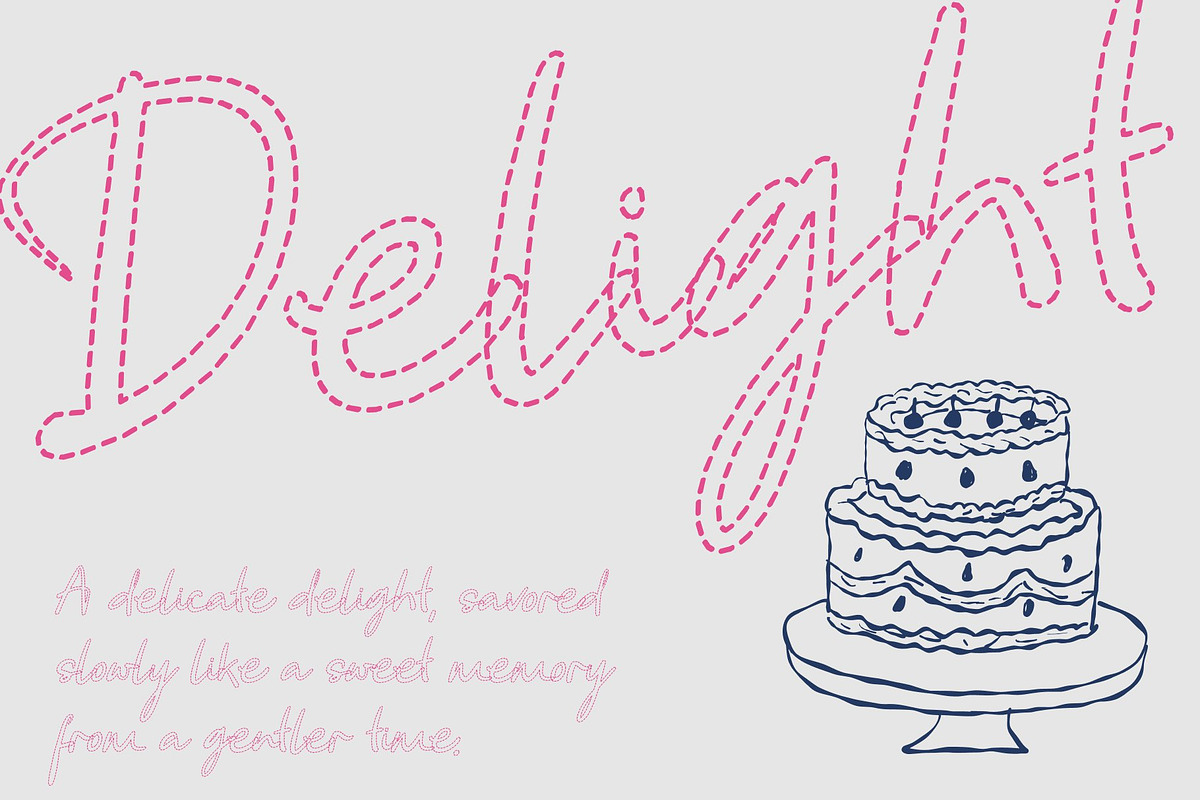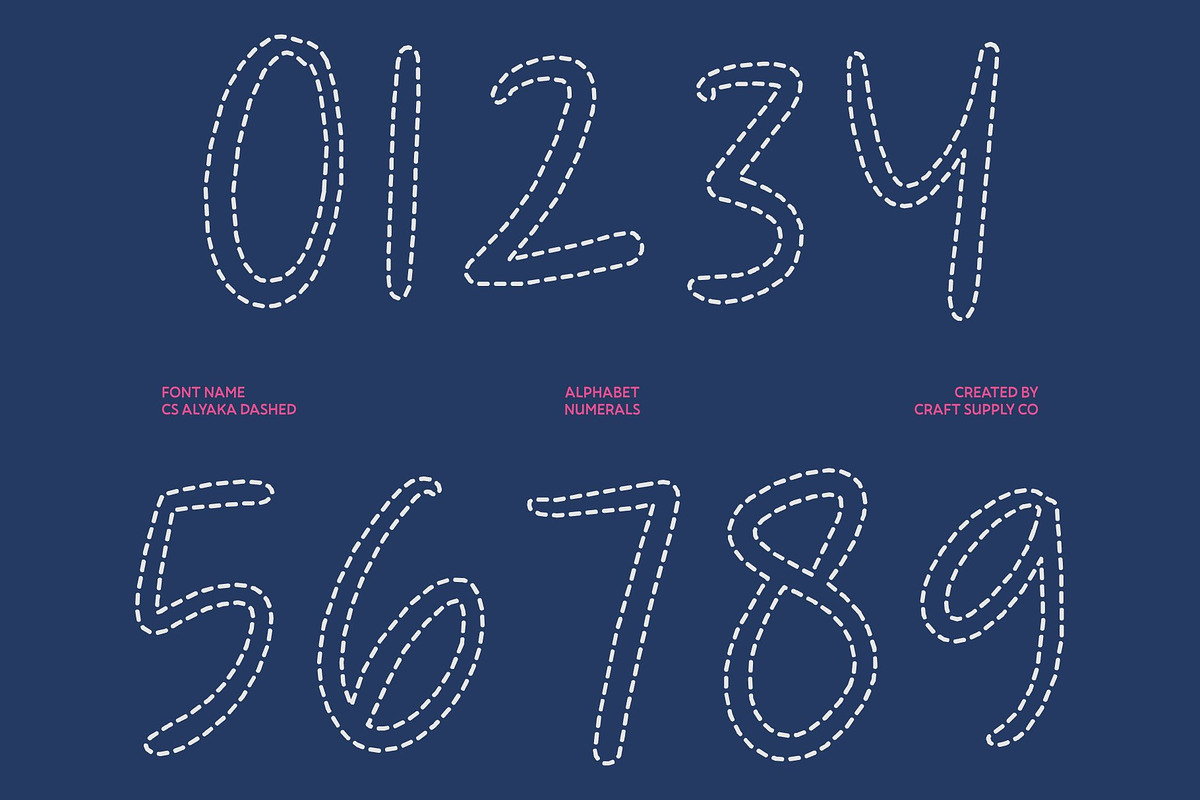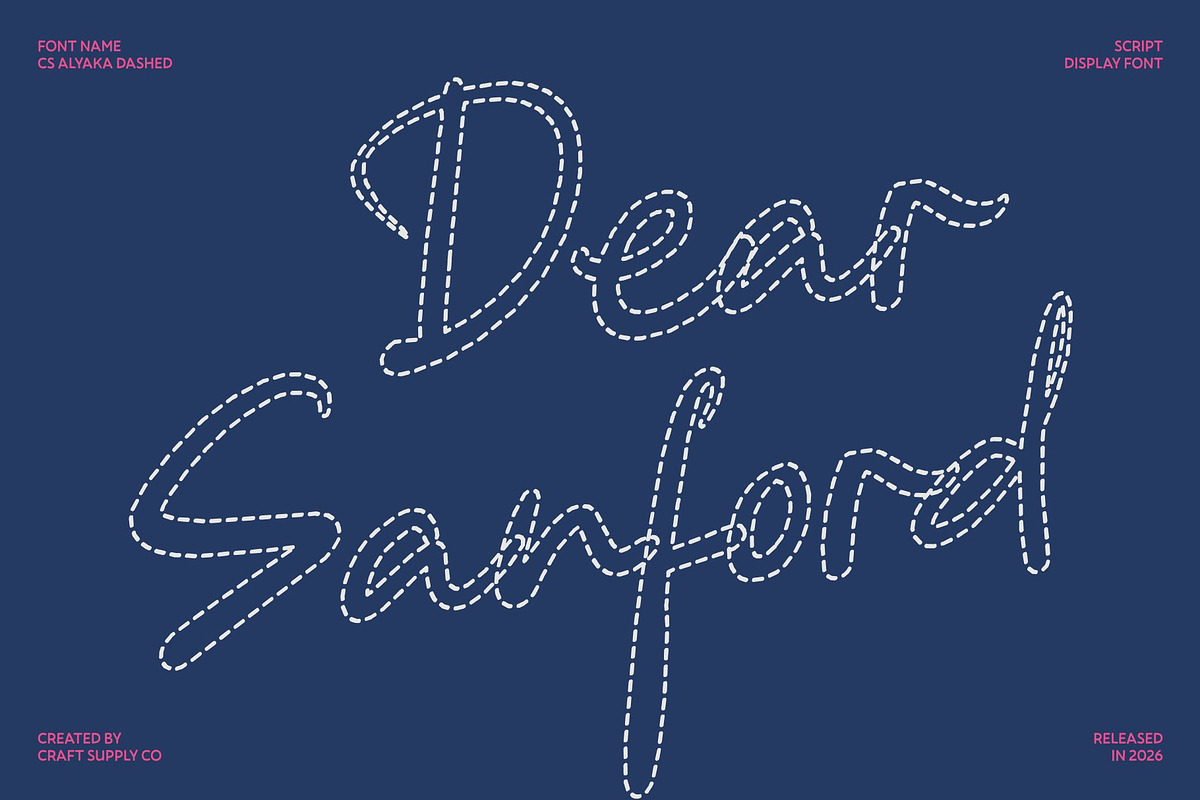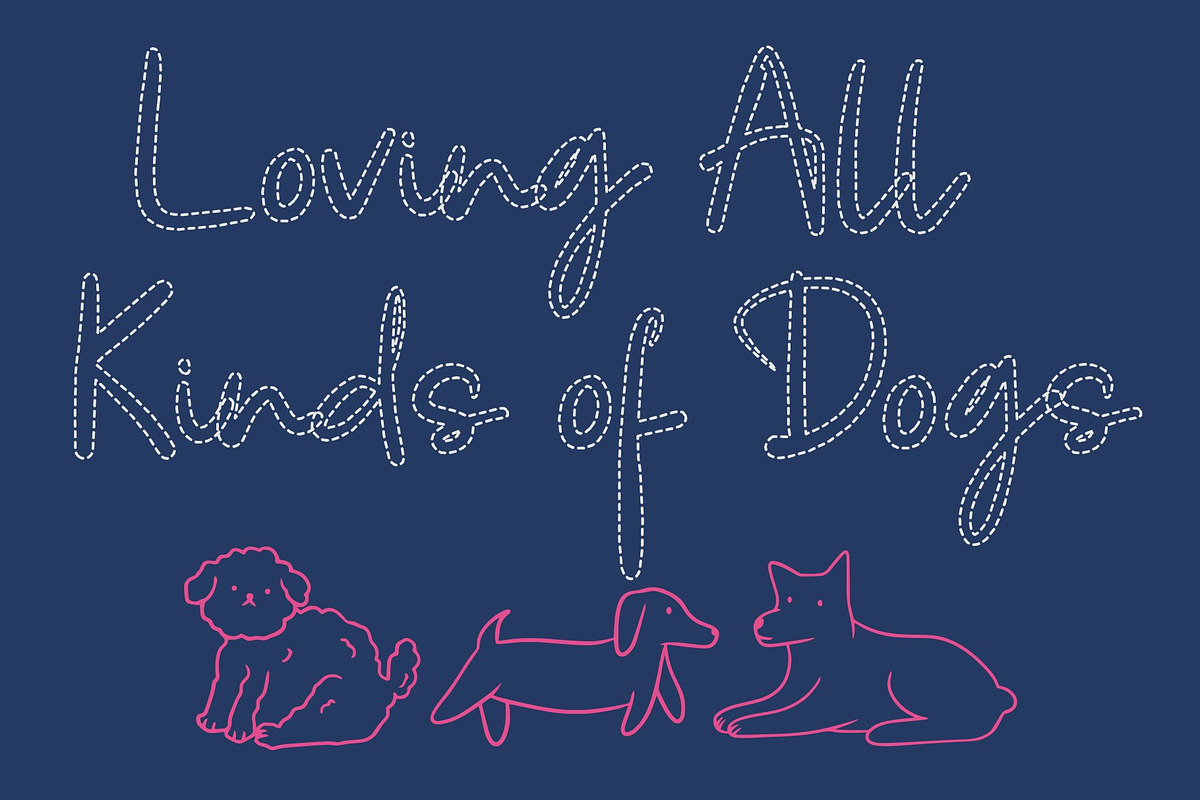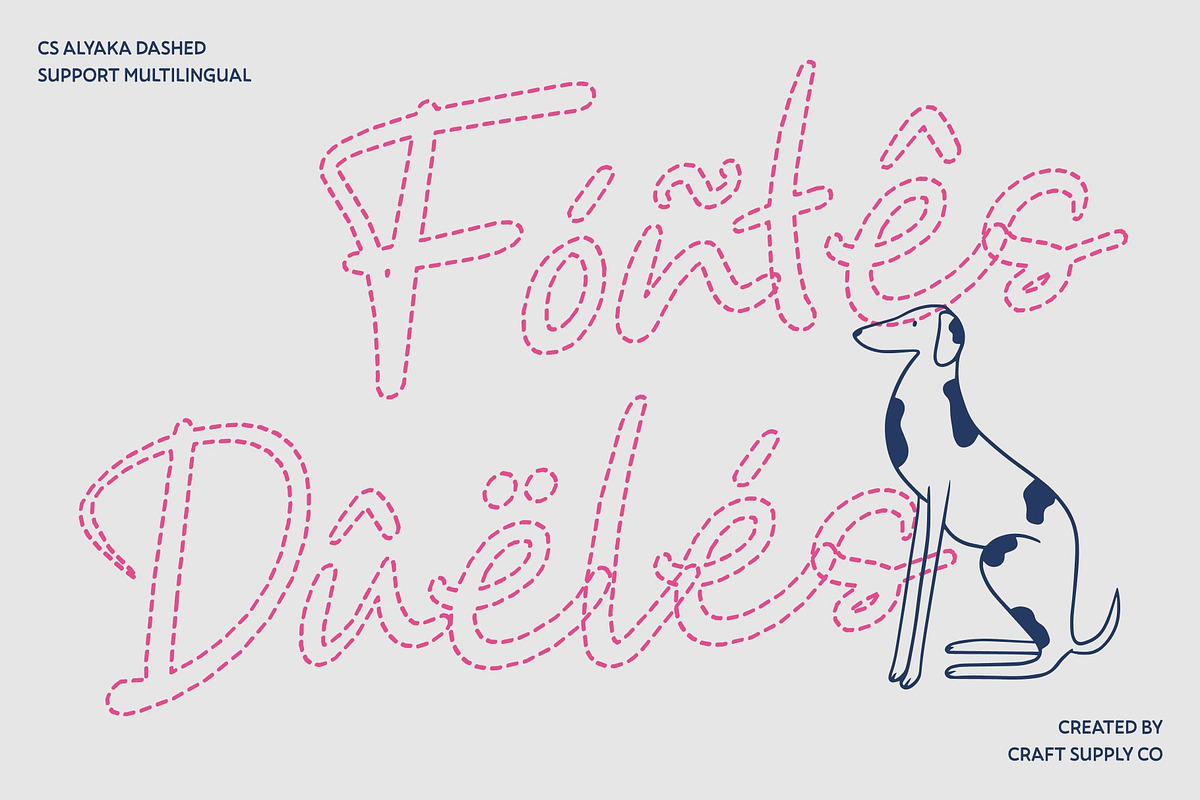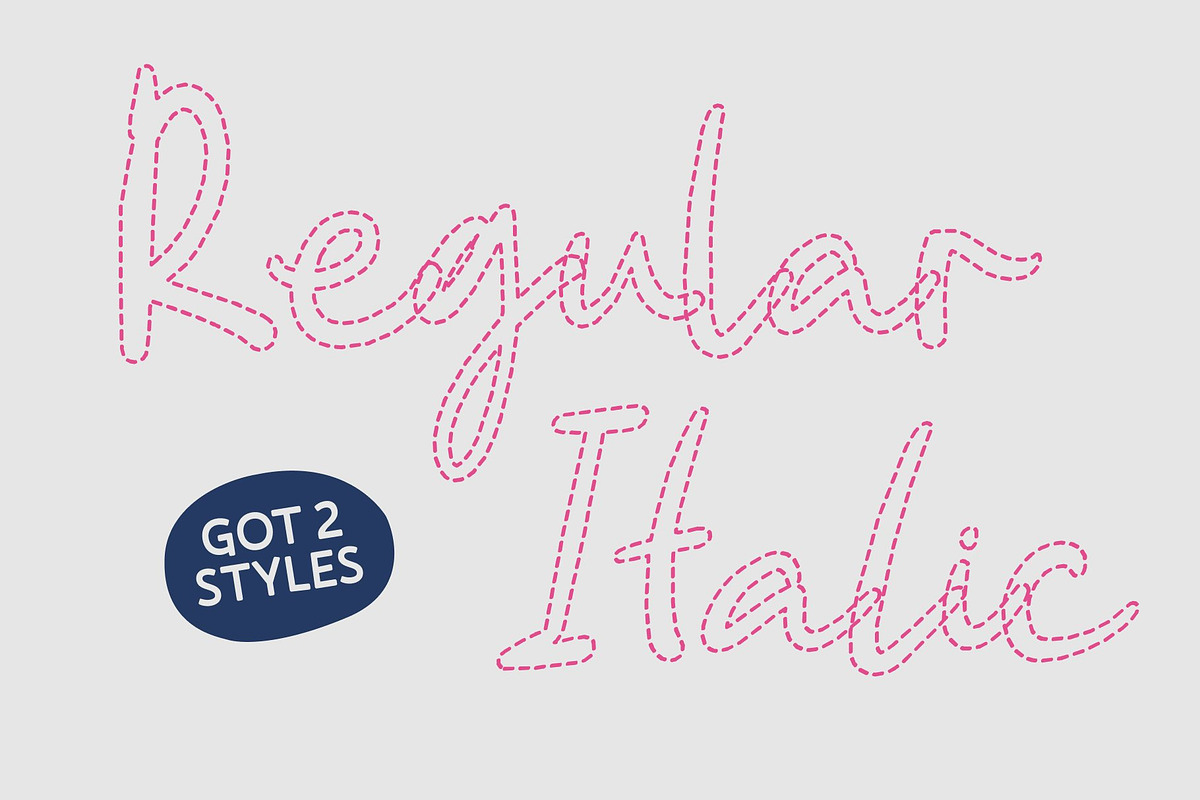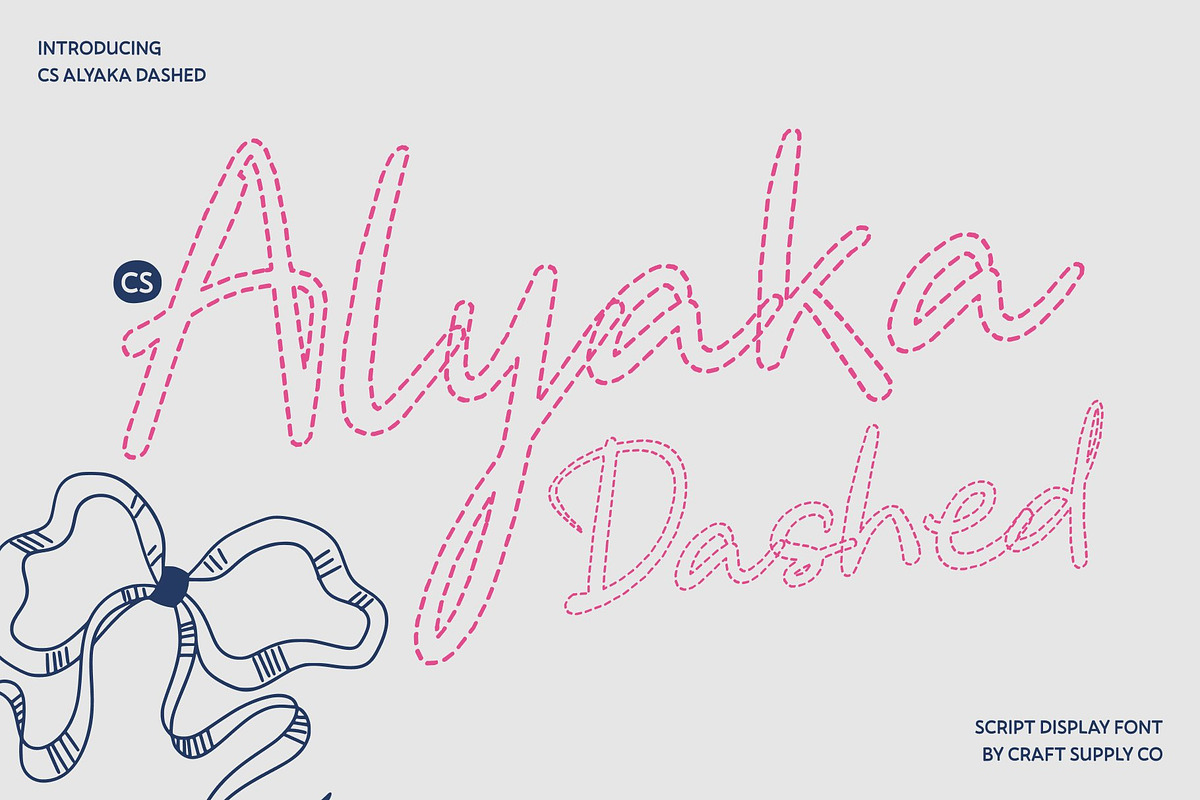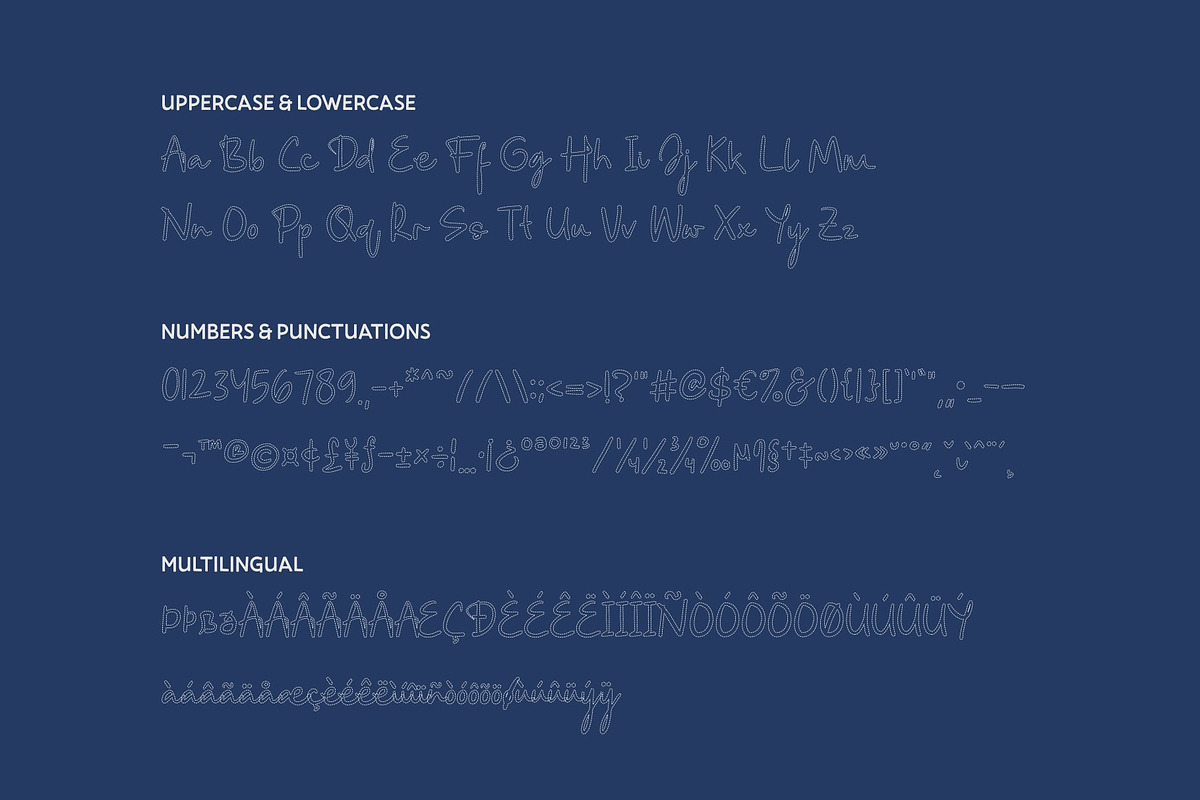
CS Alyaka Dashed
CS Alyaka Dashed – Authentic Handwritten Warmth with Personal Charm
Handwriting Script Font with Airy Dashed Pen Strokes This is a handwriting script font designed to capture the authenticity and warmth of natural pen strokes. Inspired by real handwritten movement, it features a distinctive dashed construction each stroke formed from soft, broken segments rather than solid lines. This creates a light, breathable texture that enhances its expressive and personal character.
Organic Flow with Relaxed Dashed Personality The letterforms maintain smooth, organic curves and natural connections, while the segmented strokes introduce a gentle rhythm that mimics the lift of a pen. This dashed detailing adds a casual, handcrafted nuance, making the font feel spontaneous, friendly, and unforced. The result is a relaxed style that communicates warmth and creativity with ease.
Personal Expression with Creative Warmth This font excels in designs that require an intimate and informal tone. Its airy dashed strokes soften the overall appearance, giving each word a welcoming and relatable feel. Whether used for headlines or accents, it enhances emotional connection while maintaining readability and visual charm.
Ideal for Greeting Cards, Invitations, and Casual Branding Perfect for greeting cards, invitations, casual branding, packaging, journals, and social media graphics, this font brings a natural handwritten touch to any project. Its expressive dashed style makes it especially suitable for personal events, small businesses, and lifestyle designs that aim to feel genuine, creative, and full of personality.
CS Alyaka Dashed Regular
CS Alyaka Dashed Italic